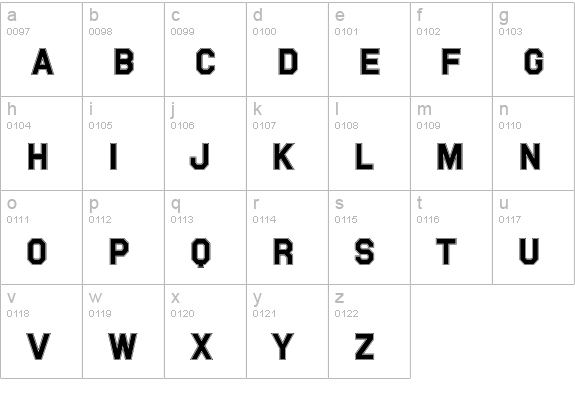
PFVarsitySans is a modern and versatile sans-serif font that exudes a sense of youthful energy and dynamism. With its clean lines and balanced proportions, this font is perfect for a wide range of design projects, from posters and flyers to websites and logos. The bold yet approachable aesthetic of PFVarsitySans makes it an excellent choice for conveying a sense of strength and confidence. What sets PFVarsitySans apart is that it is available for free download at FontsMarket.com. This means that you can easily access and use this high-quality font in your designs without any cost. Whether you're a seasoned designer looking to add a fresh touch to your projects or a beginner eager to experiment with typography, PFVarsitySans is a fantastic choice that won't break the bank. Download PFVarsitySans today and elevate your design work with its modern and impactful style.